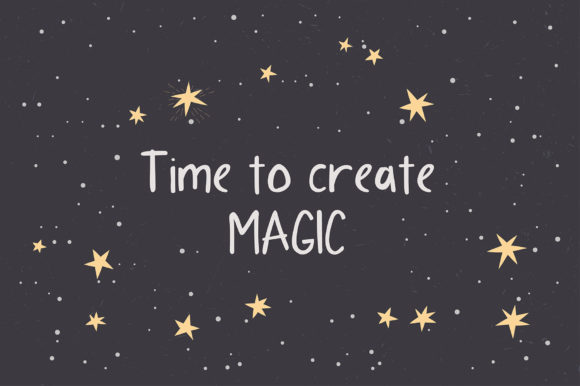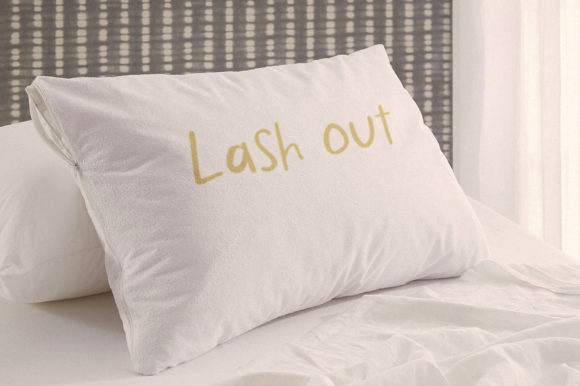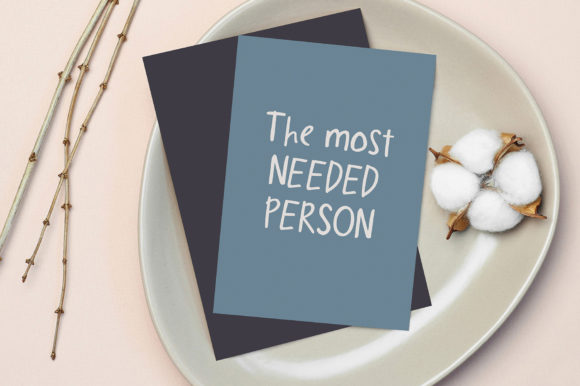
Introduction to Kit Cloudkicker Font
Kit Cloudkicker is a cute and casual handwritten font.
Whether you use it for cartoon related designs, children games or just any creation that requires a lovely touch, this font will be an amazing choice .
Kit Cloudkicker Font offers exceptional quality and versatility, making it a valuable addition to your design toolkit. Whether you’re creating for personal projects or commercial use, Kit Cloudkicker Font delivers professional results.